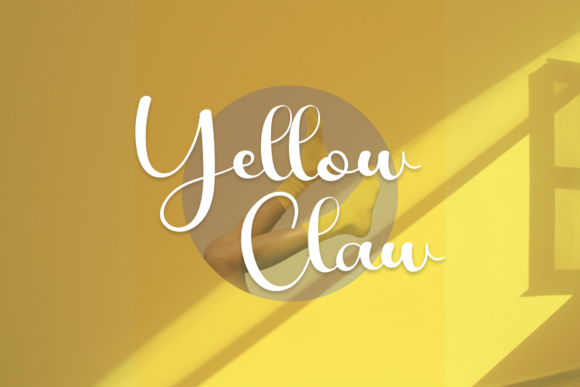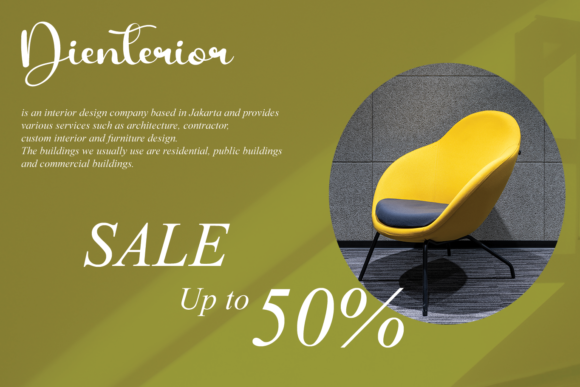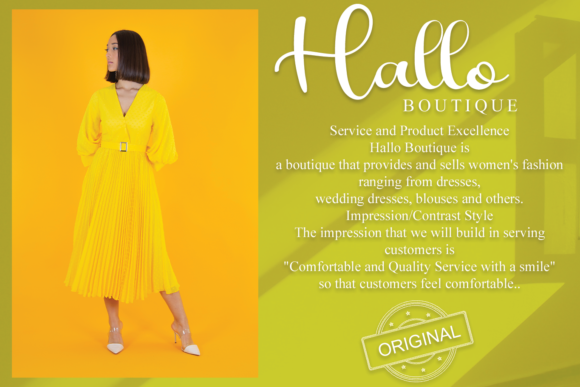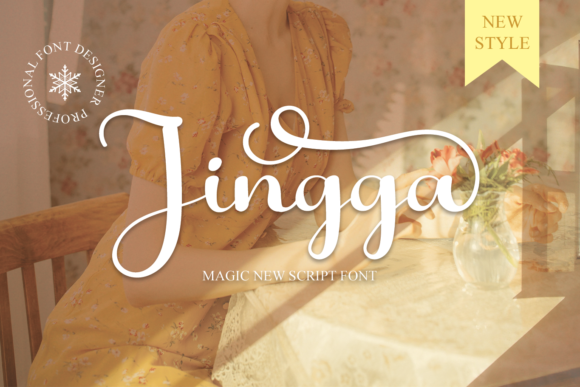
Introduction to Jingga Font
Jingga is an exquisite handwritten font, masterfully designed to become a true favorite.
Key Features of Jingga Font
Why Choose Jingga Font?
Jingga Font offers exceptional quality and versatility, making it a valuable addition to your design toolkit. Whether you’re creating for personal projects or commercial use, Jingga Font delivers professional results.